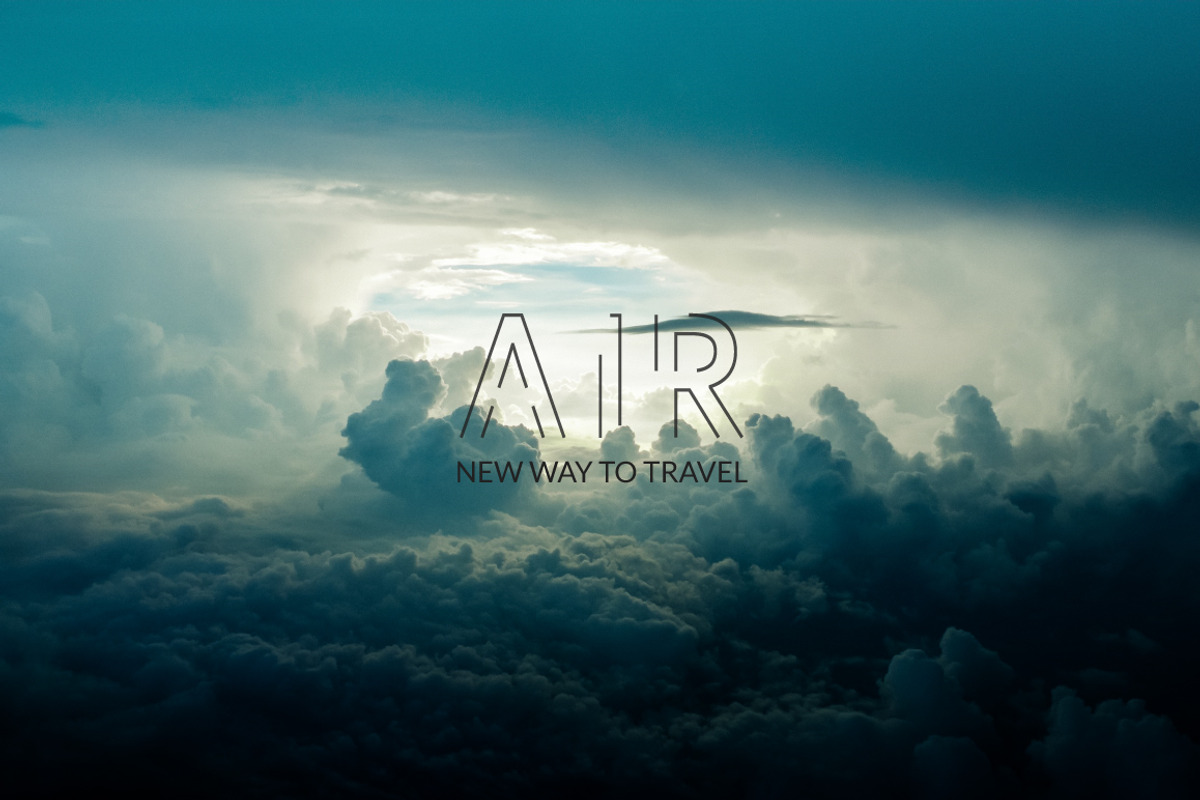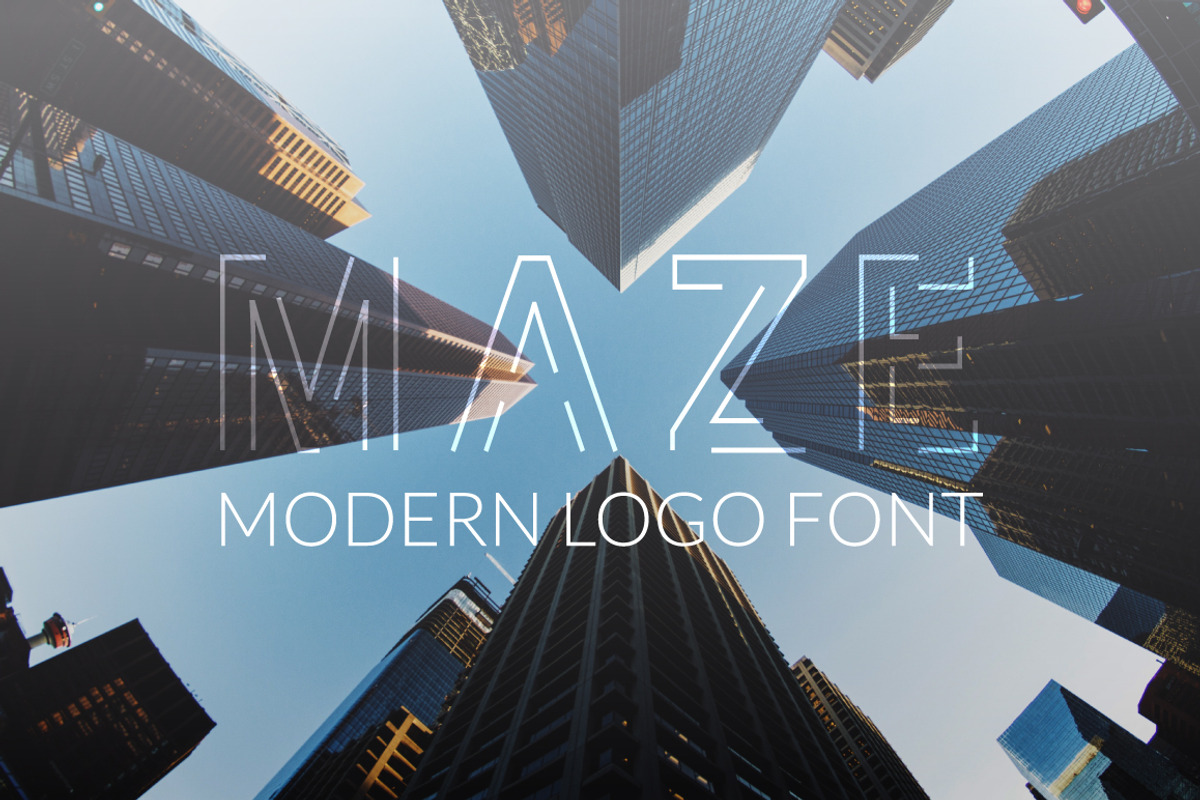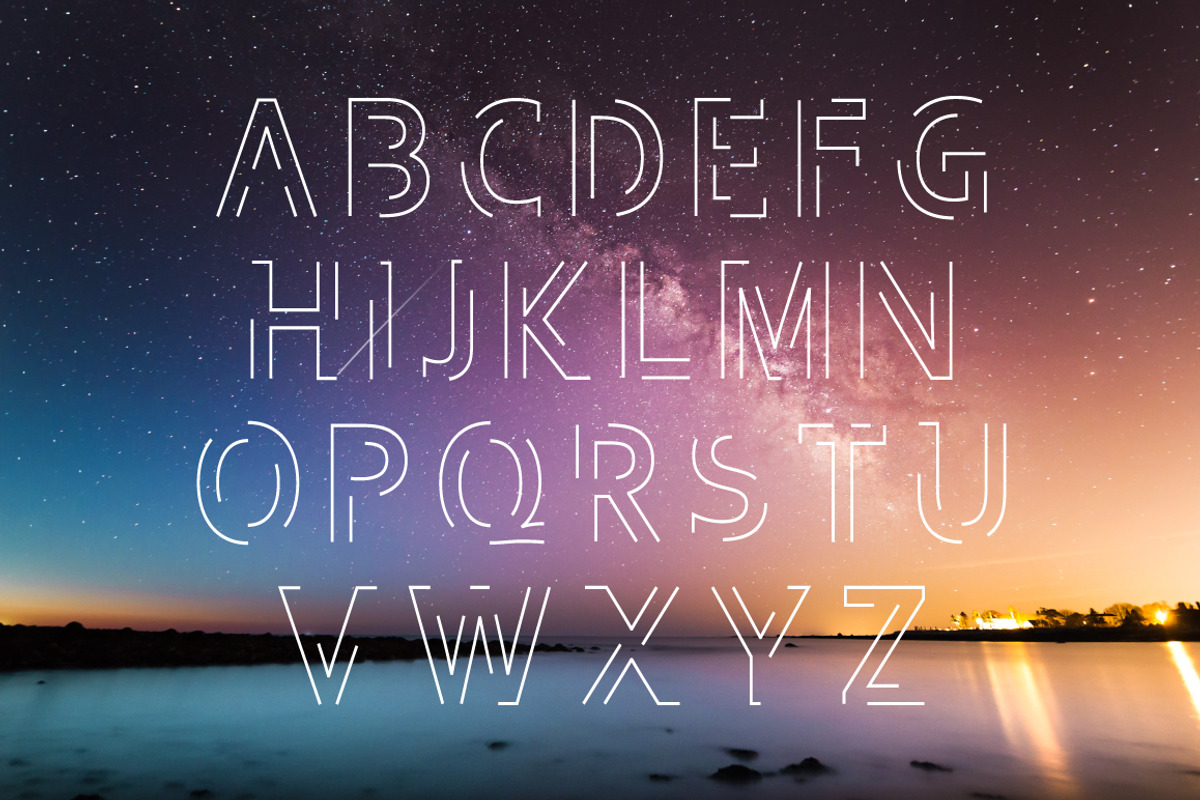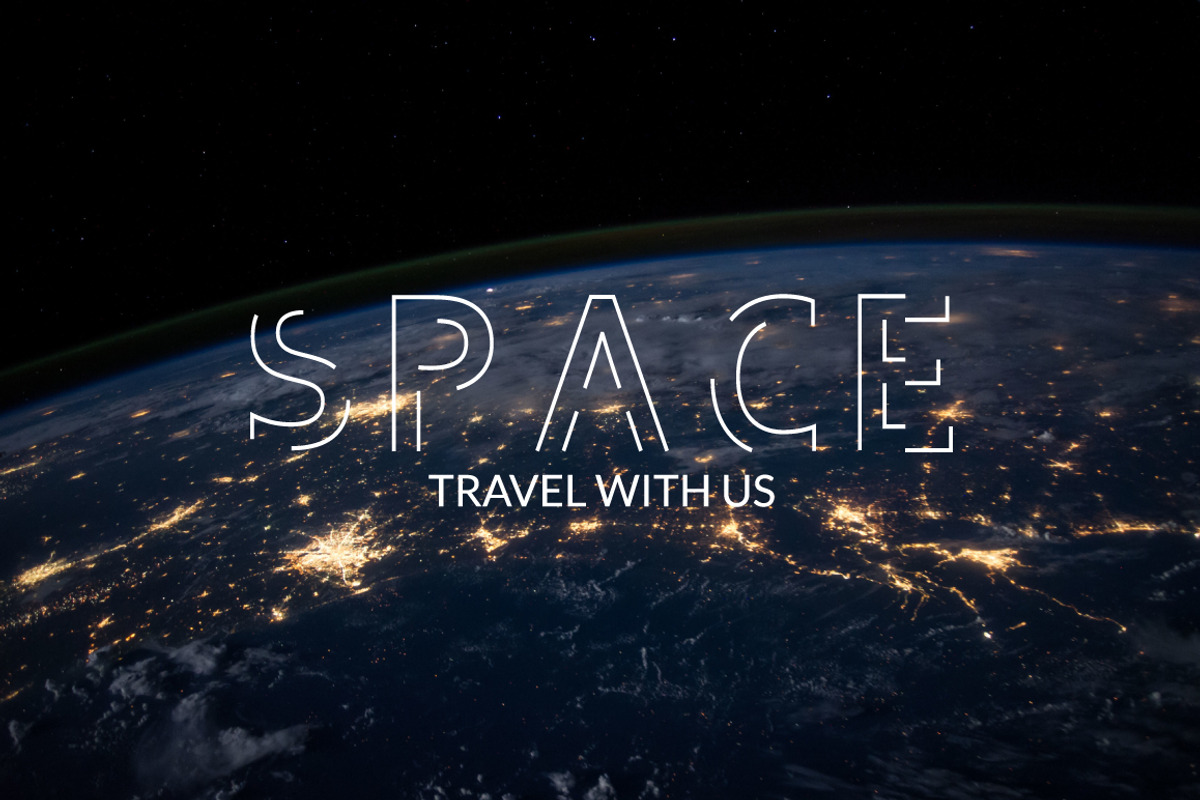
Maze Logo Font
Maze Logo Font by Max Letters is a font selected for branding, posters, packaging, typography.
- Because this is LOGO font,- It`s contains only uppercase letters.
Why Maze Logo Font is worth a look
Maze Logo Font by Max Letters fits naturally into Branding, posters, packaging, typography.